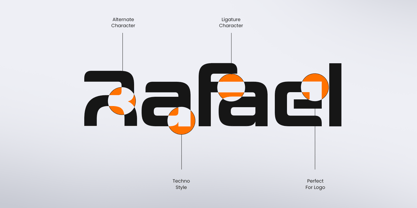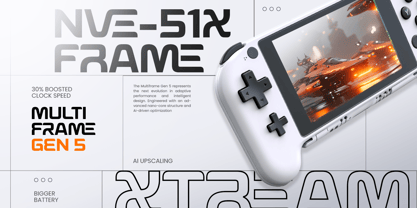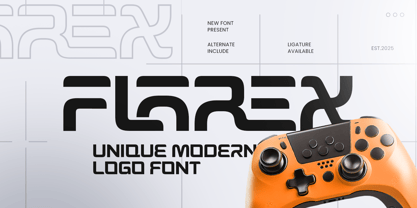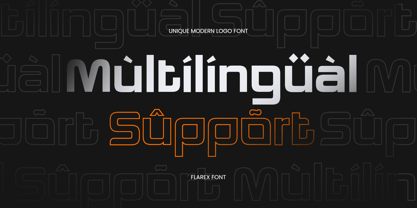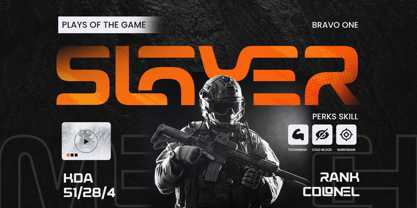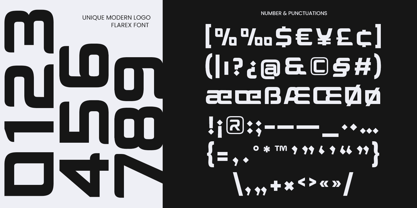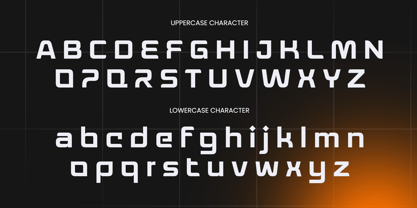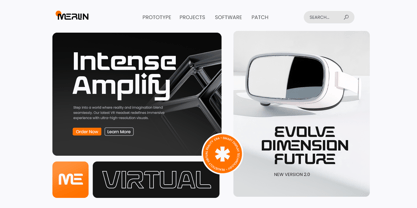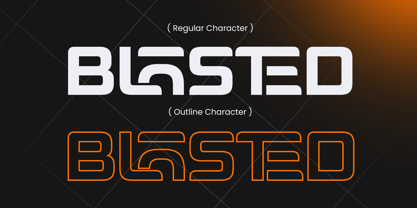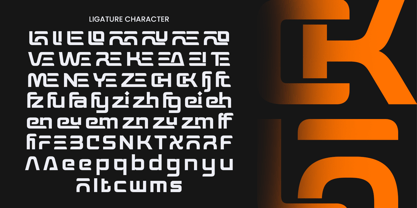
FLAREX is a unique gaming logo font built to deliver power, attitude, and instant impact. With sharp forms, dynamic energy, and a competitive edge, this typeface is designed to feel modern, intense, and ready for the arena—perfect for gaming-first identities.
Ideal for esports logos, team branding, streamer graphics, gaming thumbnails, tournament posters, and high-energy social media content, FLAREX helps your typography look fast, fearless, and professional. Use it for logotypes, badges, merch, banners, UI overlays, and punchy headlines where readability and bold presence matter.
Whether you’re branding an esports squad, launching a gaming channel, or creating adrenaline-driven visuals for events and merch, FLAREX brings a signature look that keeps your design loud, sharp, and unforgettable.
FLAREX – Unique Gaming Logo Font Features
Unique gaming letterforms with bold, competitive character
It's perfect with regular and outline version for variations
Perfect for esports logos, team identity, and streamer branding
Strong impact for posters, thumbnails, banners, and headlines
Great for merch, badges, and tournament graphics
Includes uppercase, lowercase, numerals, and punctuation
Optimized for digital displays and sharp print output
OpenType features for flexible, professional typography